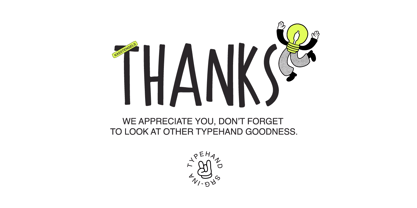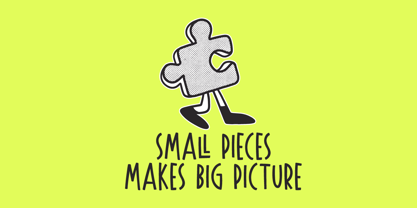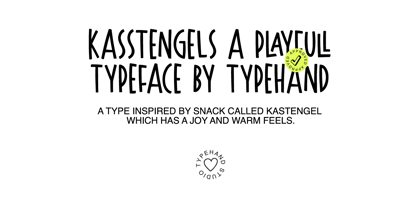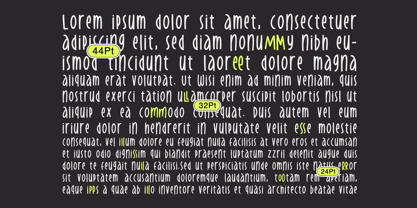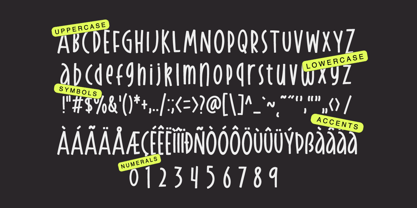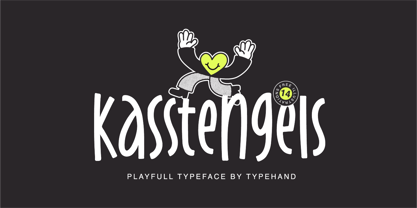
Kasstengels
by Typehand Studio
The Kasstengels Font Family was designed by Yanuar Adi and published by Typehand Studio. Kasstengels contains 1 styles.
Say hello to Kasstengels, a whimsical and cheerful typeface designed to add a splash of fun to your creative projects. With its hand-drawn appearance and lively characters, this font is perfect for anything from children's books to playful branding and vibrant graphics.
Kasstengels have Expressive Ligatures which can enhance the flow of your text with built-in ligatures, making your typography more cohesive and engaging.
• Kasstengels Regular
• A stylistic alternates set with 62 characters (A-Z, a-z and 0-9)
• Ligature Features : ee ll mm oo pp ss tt ee LA LL MM RR
• Multilingual Supports
Designers: Yanuar Adi
Publisher: Typehand Studio
Foundry: Typehand Studio